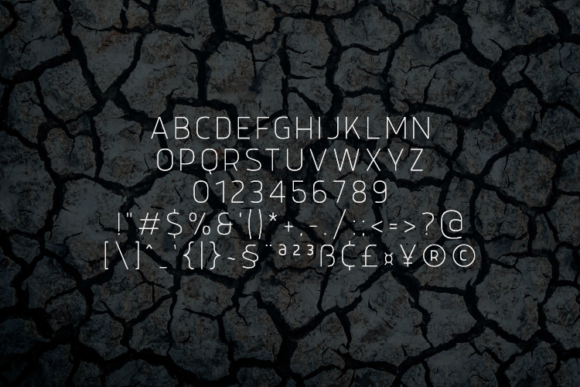
Introduction to Phenchile Font
Phenchile simplifies elegance into one truly outstanding sans serif font.
Use this gorgeous and unique font to bring any DIY project to life .
Why Choose Phenchile Font?
Phenchile Font offers exceptional quality and versatility, making it a valuable addition to your design toolkit. Whether you’re creating for personal projects or commercial use, Phenchile Font delivers professional results.